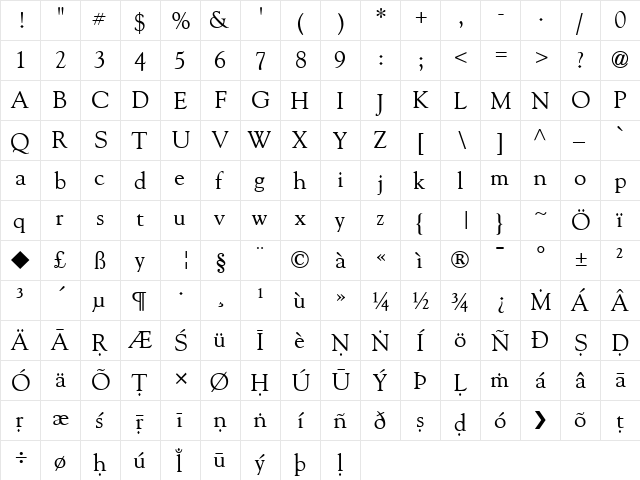
ScaGoudy Regular
Design Context for ScaGoudy Typeface
ScaGoudy offers clean, dependable letterforms without strong stylistic allegiance, making it a practical choice for designers who need flexibility.
Pro Tip: Use ScaGoudy in both headline and body roles to test its range before committing to a single application.